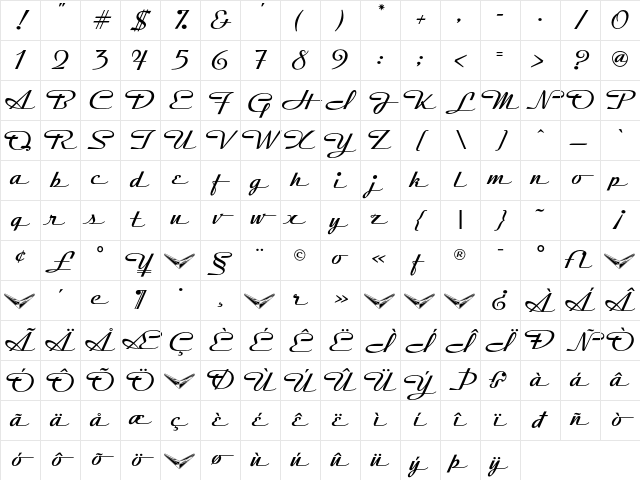
Streamline is a composed and adaptable typeface that performs quietly and consistently across a wide range of design contexts. Its slender proportions lend an understated elegance to any composition.